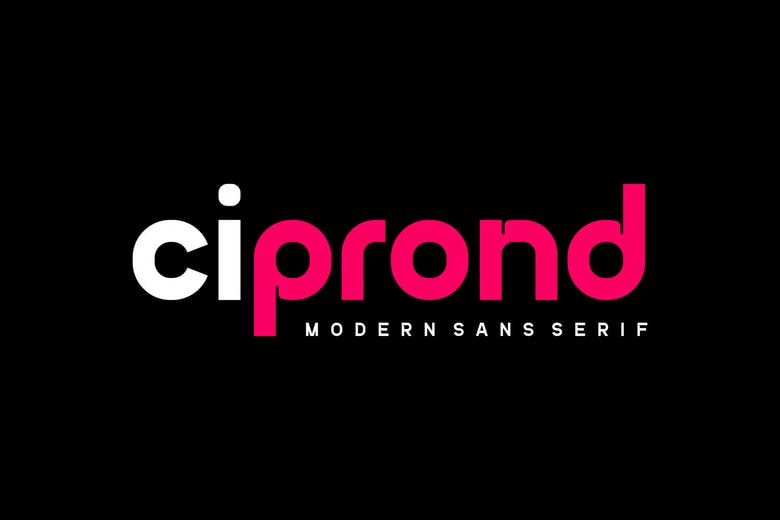
Ciprond Font
Ciprond Font – Modern Sans Serif Font. Ciprond Font – Modern Font is a unique and real looking display fonts. it is can be used in any branding projects for logo design, t-shirt printing, esport etc and is exceptional for just about any application.
Ciprond Sans Serif Font